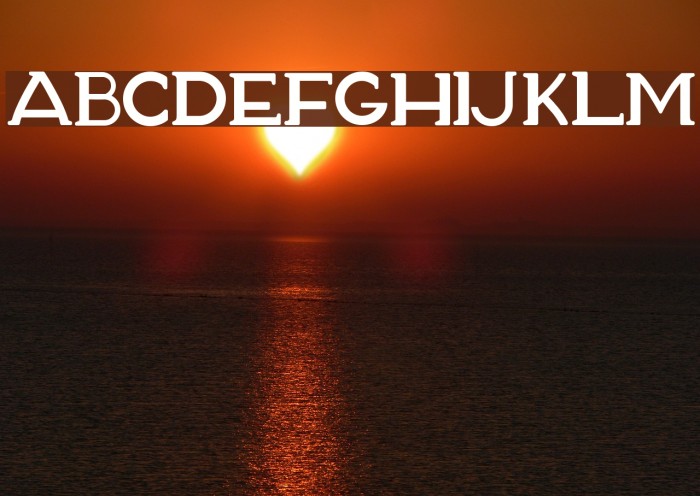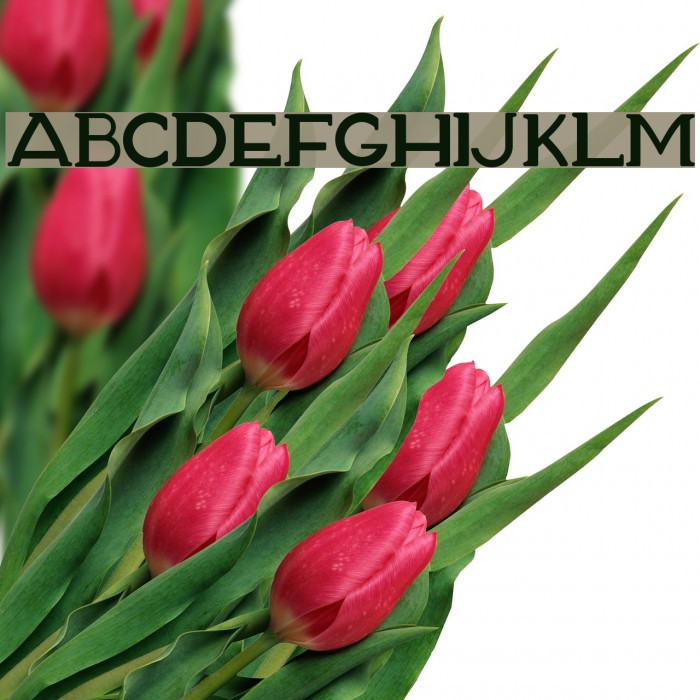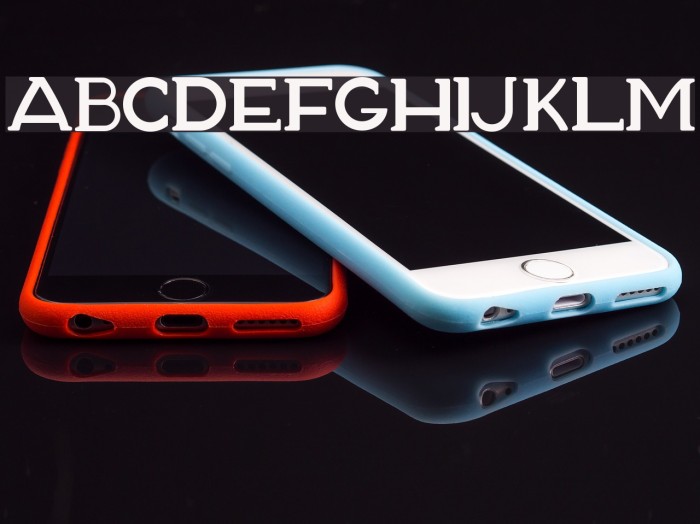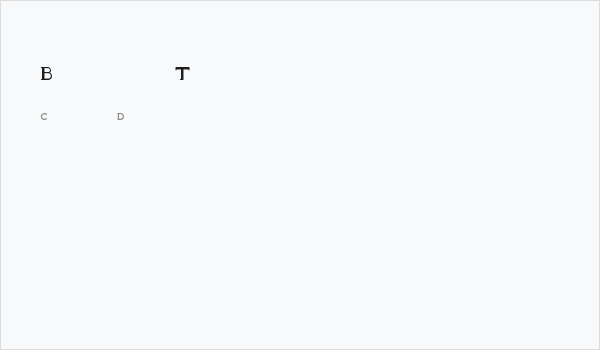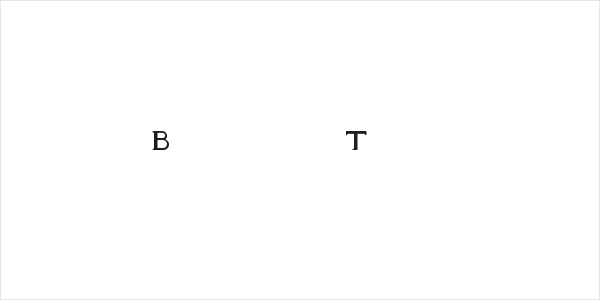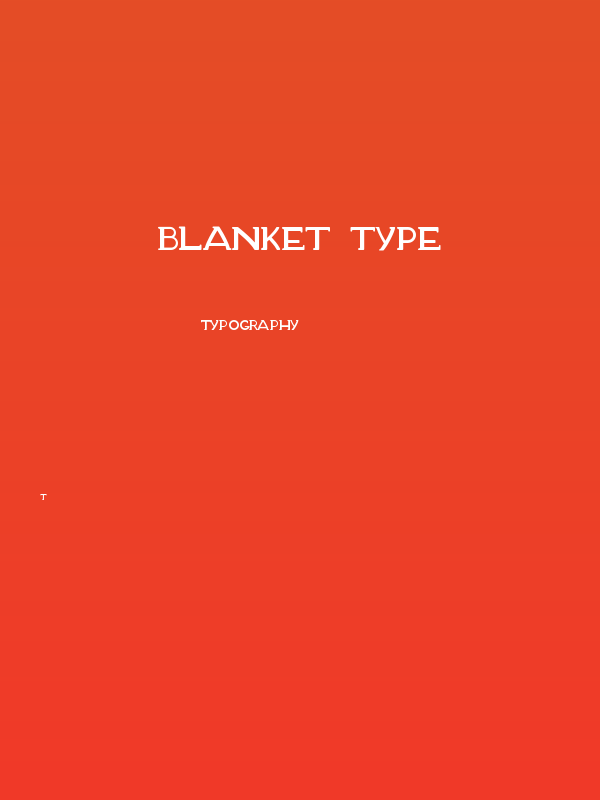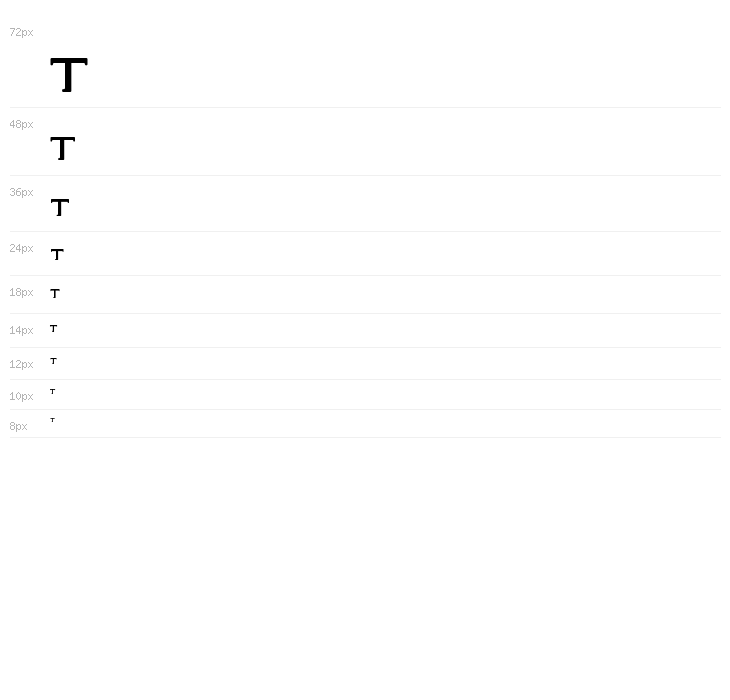
Blanket Type Font
Blanket Type Description
This font features a bold and structured design, characterized by its geometric and angular letterforms. The uppercase letters exhibit a strong presence with consistent stroke widths, creating a sense of stability and modernity. The serifs are pronounced yet minimal, adding a touch of elegance without overwhelming the overall design. The font maintains a uniform appearance across all characters, ensuring readability and a cohesive look. Its clean lines and balanced proportions make it suitable for various design applications, from digital to print media. The font's style is both contemporary and timeless, making it versatile for different contexts.
Genavieve Charette
| Proposed Projects | Ideal for branding, headlines, posters, and editorial design where a modern and strong visual impact is desired. |